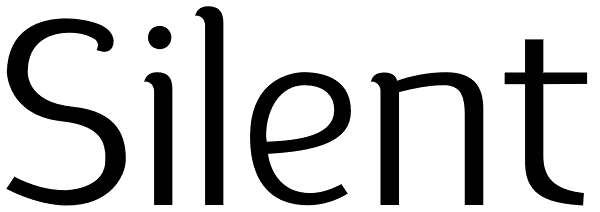
Silent
Silent is a semi-serif typeface that combines readability with fluidity in a discreet and clean design. It works great on short texts such as captions, charts and graphs. The soft curves offer a calm rhythm. The design is smooth and bring silence...